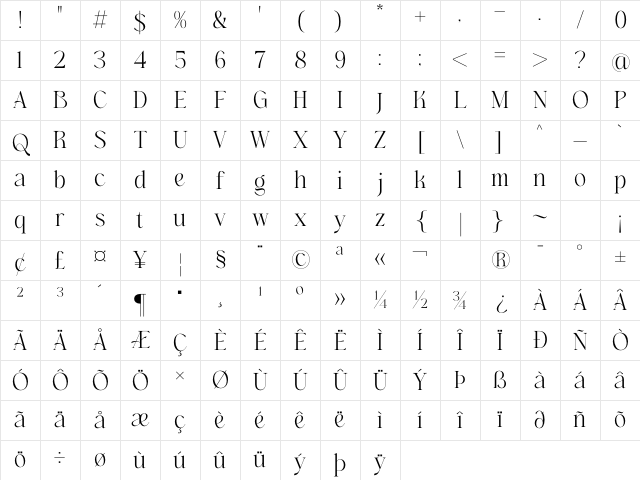
Hogbine Regular Free Font
Hogbine Regular
Foundry: Storytype Studio
Designer: Heru Utama Putra
Design Context for Hogbine
Hogbine is a composed and adaptable typeface that performs quietly and consistently across a wide range of design contexts.